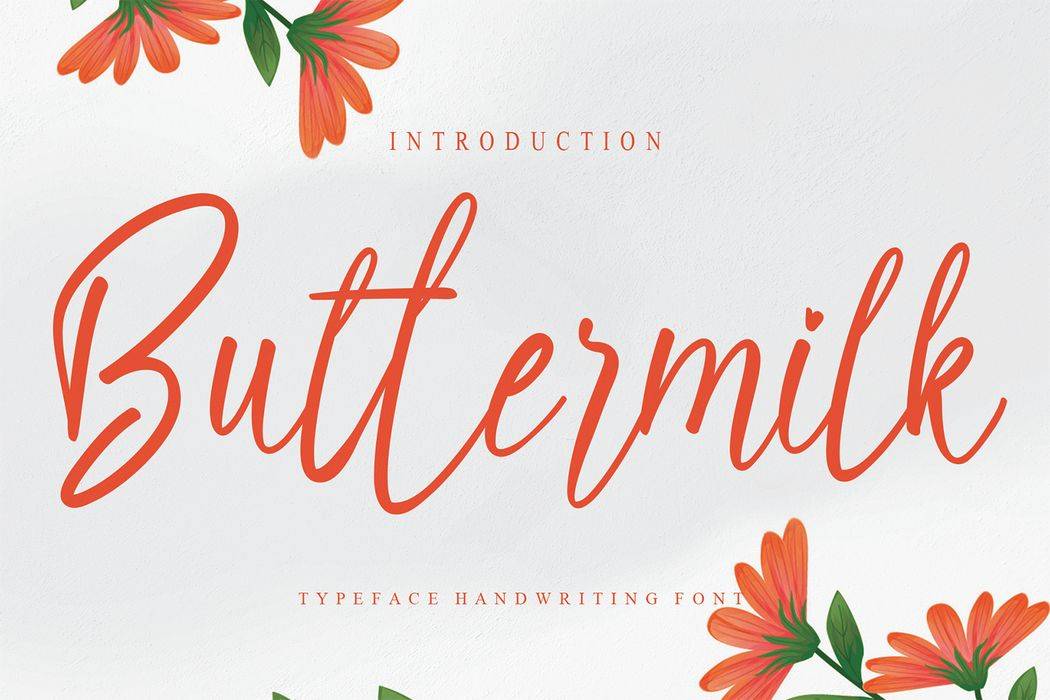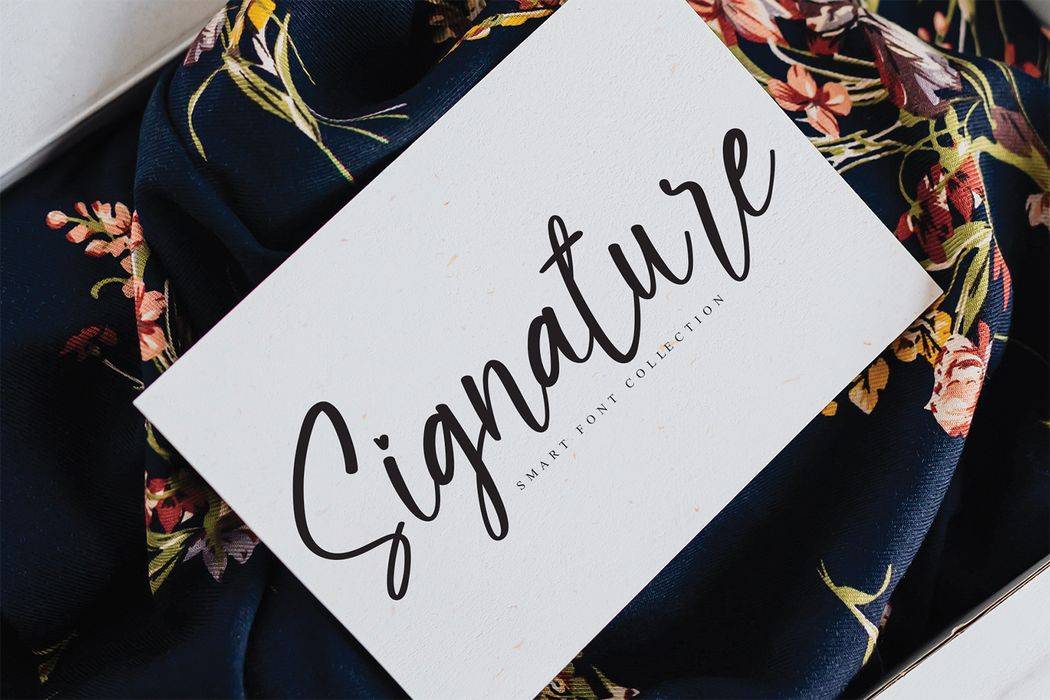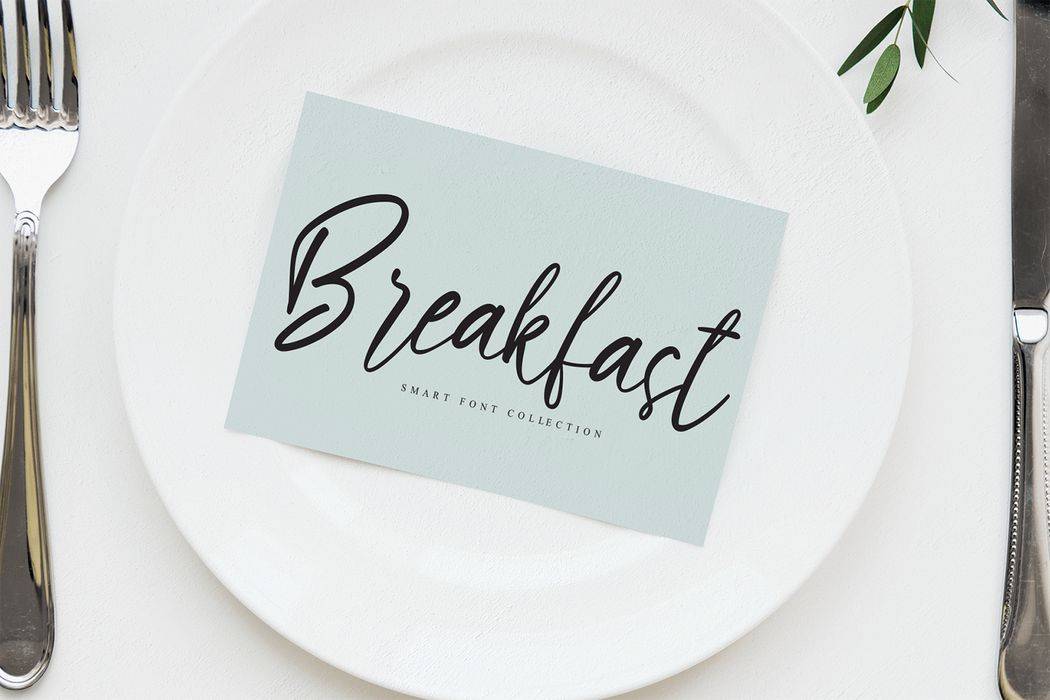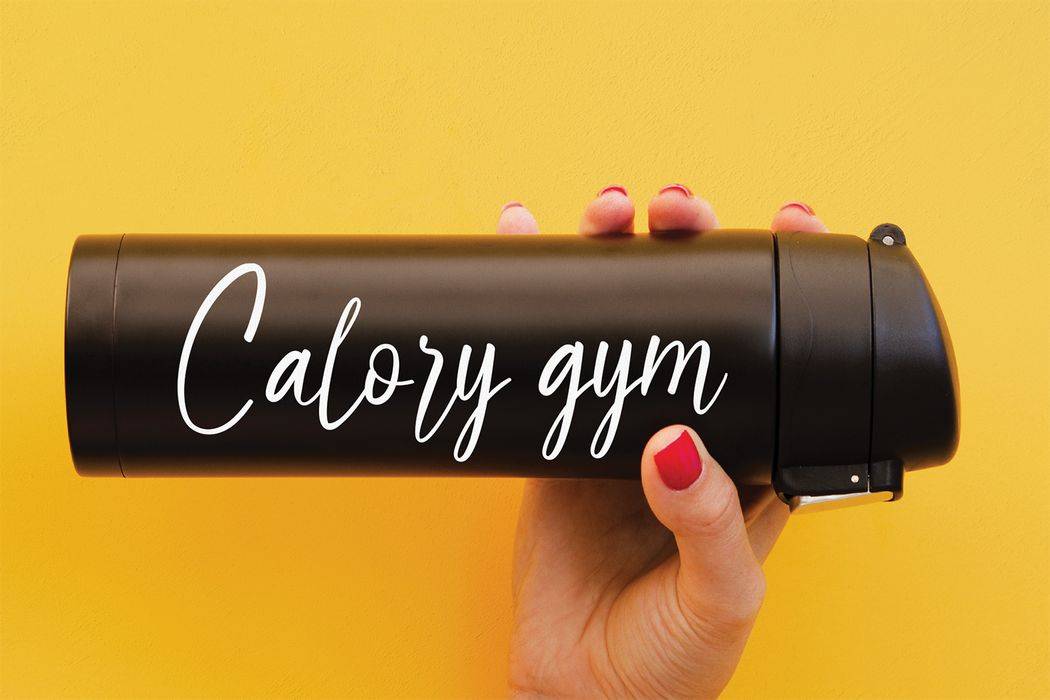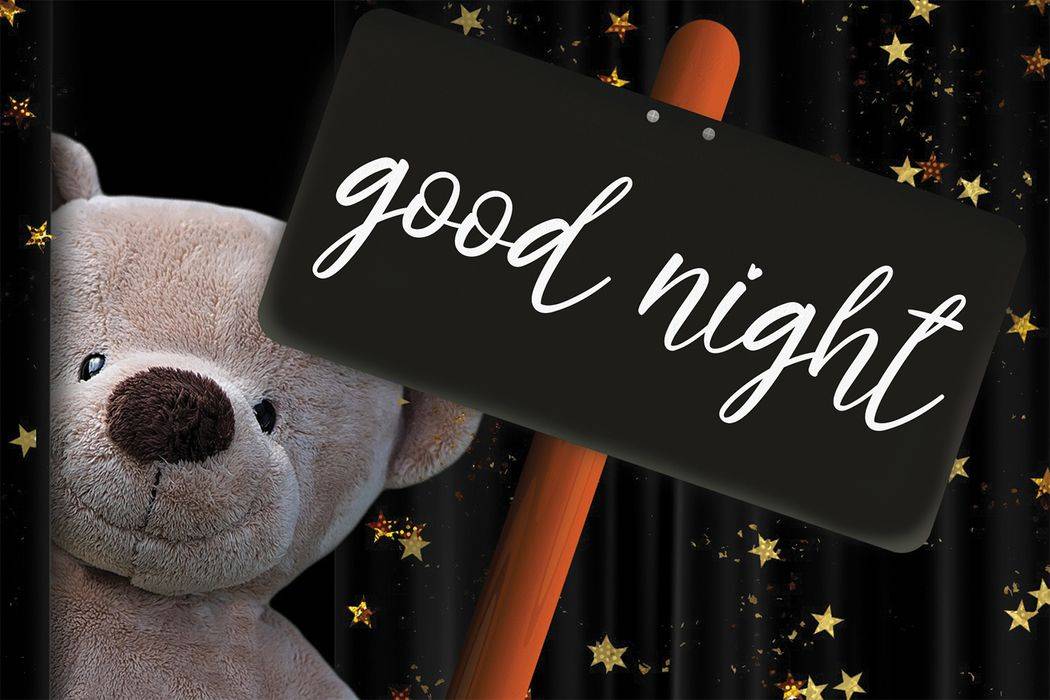
Buttermilk is a delicate and elegant script font with a hand-lettered feel, featuring tall, slender letterforms with graceful loops and smooth connections. Its thin weight and airy spacing give it a light, whimsical personality, making it perfect for creative branding, invitations, and feminine editorial designs. This font works best where a personal, charming touch is needed to convey warmth and sophistication.
Buttermilk Font